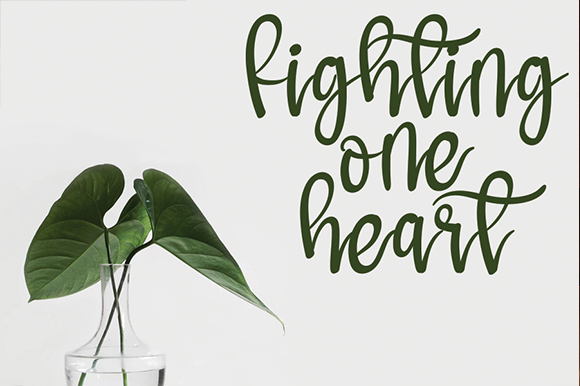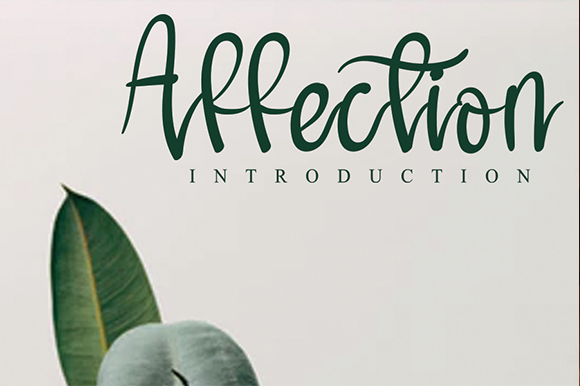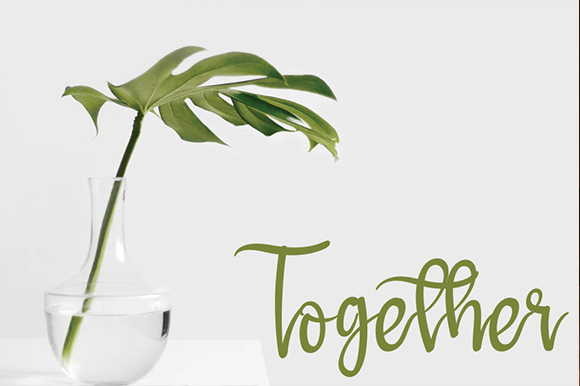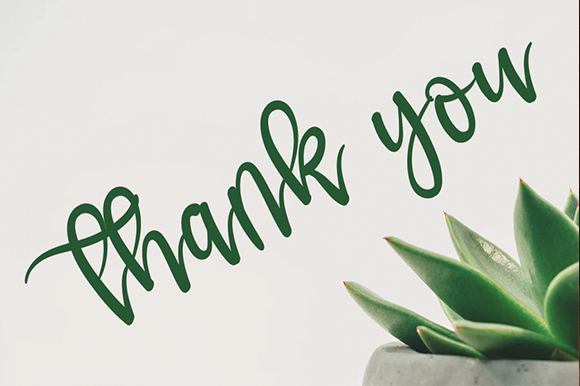
Halmuda Font
About Halmuda Font
Halmuda is a whimsical handwritten font carefully created with a touch of elegance. Halmuda is the perfect font for making original and outstanding designs.